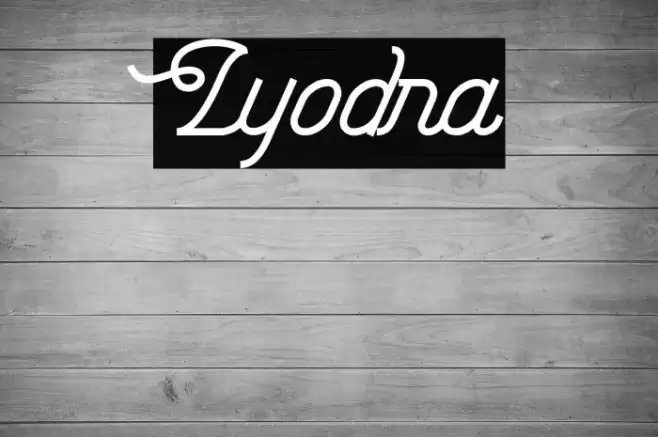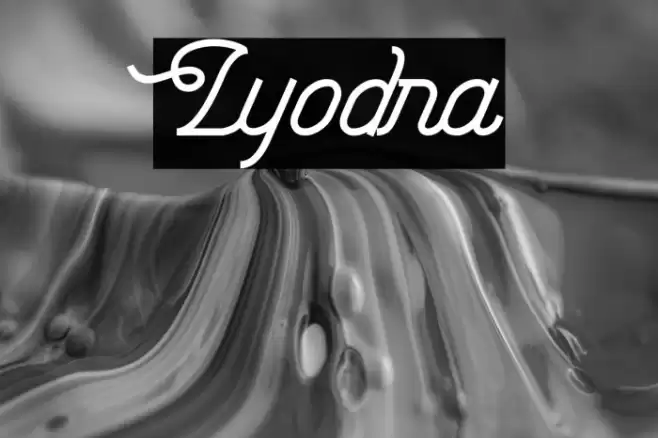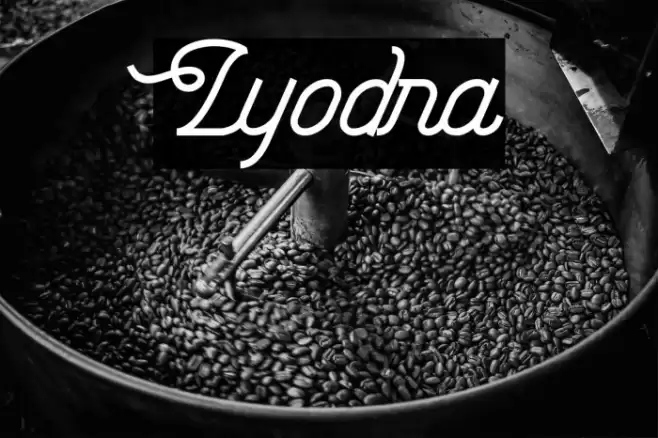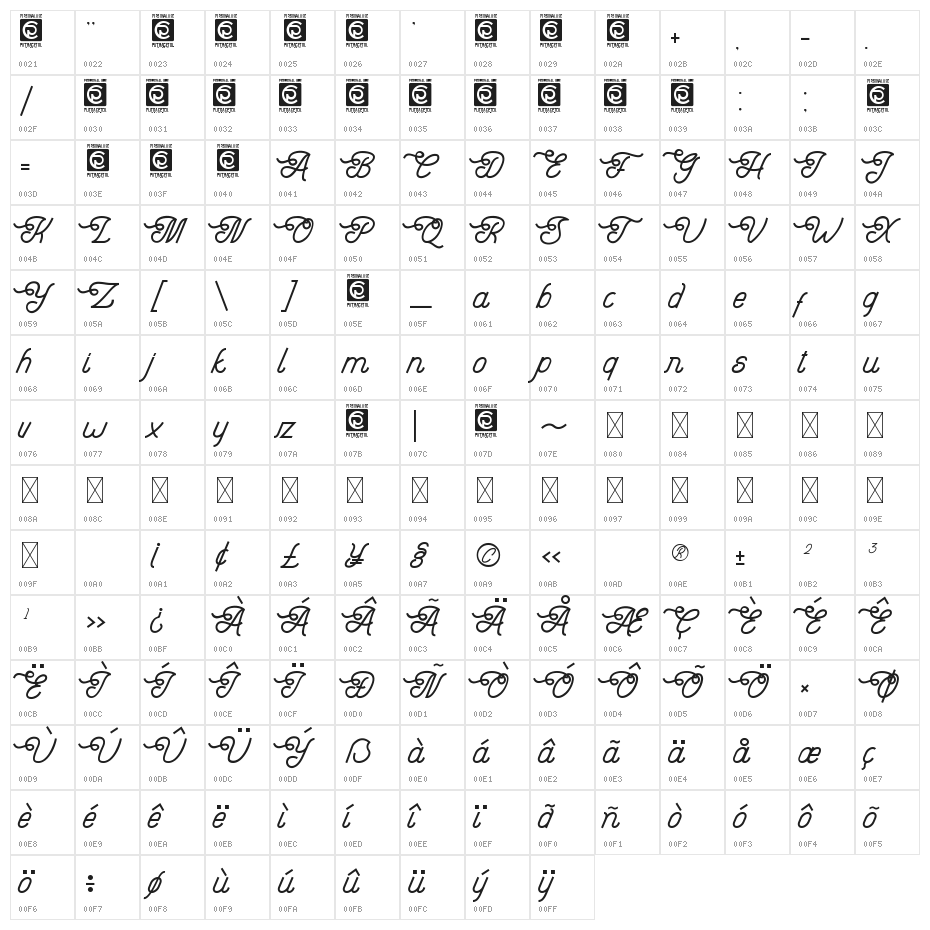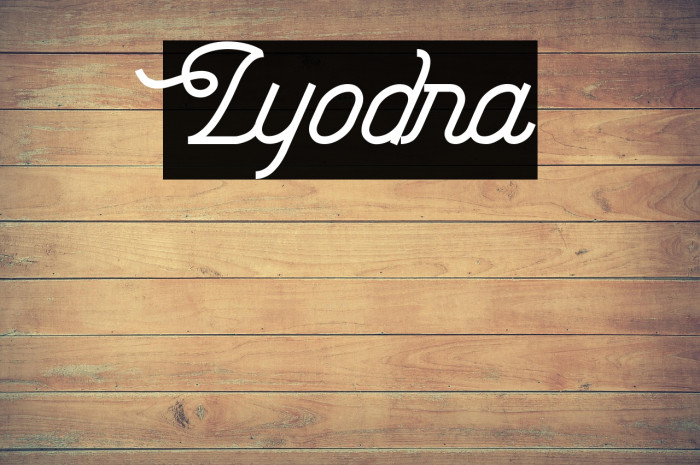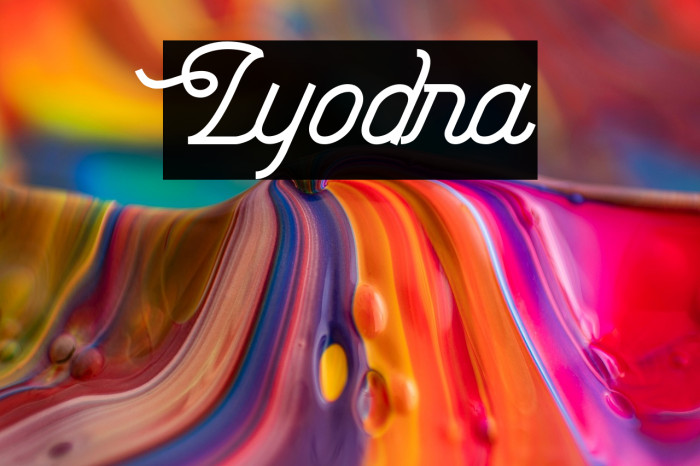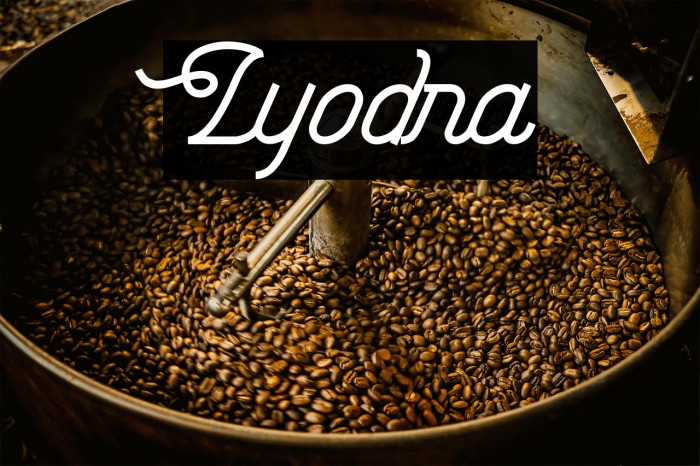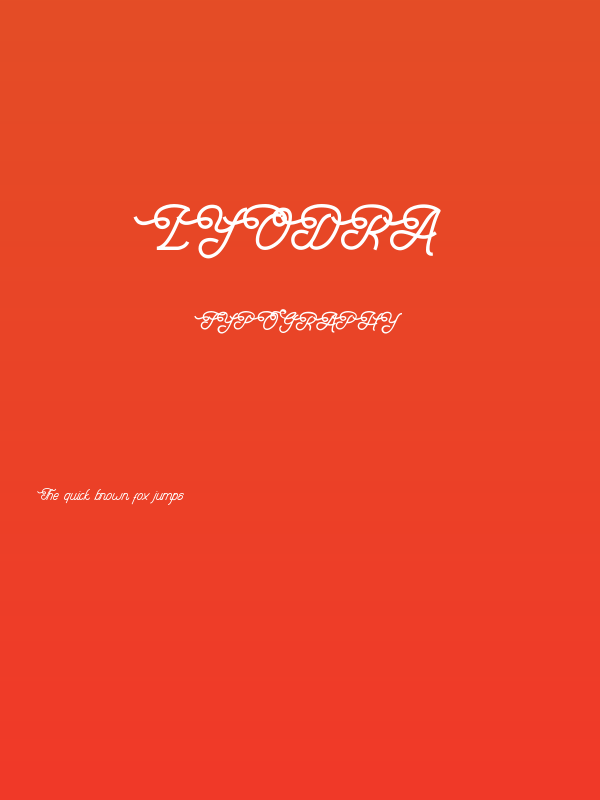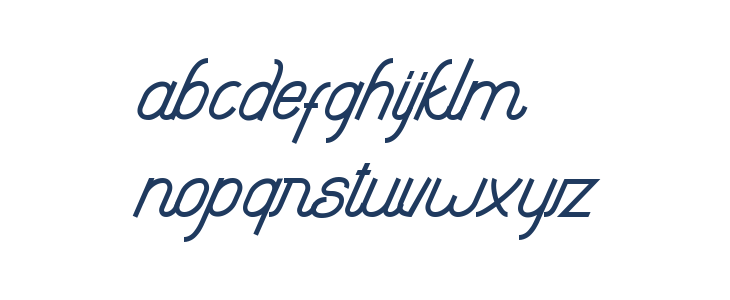
Lyodra Font
Lyodra Description
This font features an elegant and flowing script style, characterized by its intricate and decorative swashes that extend from the uppercase letters. The lowercase letters maintain a smooth and connected appearance, enhancing the font's cursive nature. The overall design is both sophisticated and artistic, making it suitable for projects that require a touch of elegance. The characters are well-balanced, with a moderate contrast in stroke thickness, giving it a refined look. The font's unique style is ideal for creative and formal applications, where a sense of grace and fluidity is desired.
An elegant script font with decorative swashes and smooth, connected lowercase letters from Regular fonts.
- Proposed Projects: Ideal for wedding invitations, elegant branding, greeting cards, and artistic projects.
- Overall Style: Elegant, Decorative
- Use Case: Headlines, Invitations, Branding